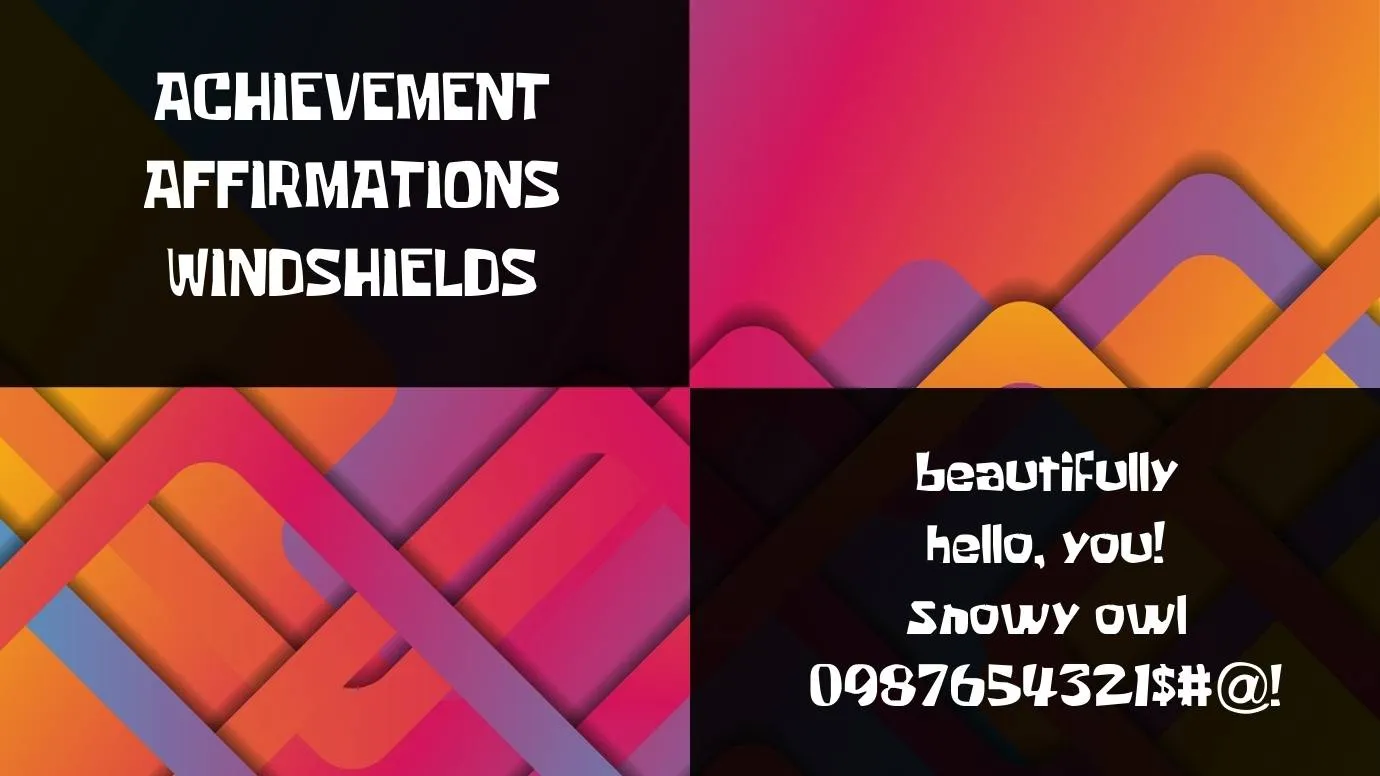
Krabby Patty Font is a font that was created to resemble the lettering used in the SpongeBob SquarePants episode “Krabby Land.” The font is available for free online. Krabby Patty typeface is available in different styles, including regular, bold, and italic.
Krabby Patty typeface has a complete set of characters including upper and lowercase letters, numbers, and punctuation marks. The font also includes a special character for the Krabby Patty logo.
Designer of Krabby Patty Font
This surprising and attractive typeface is designed by an Indonesian typeface designer Seilweiss in 2012.
This font style is designed with a unique and consistent style. This single attractive style is a mixture of various characteristics, containing upper- and lower-case letters, numbers, punctuations, symbols, special characters, glyphs, and multiple language support.
| Name | Krabby Patty Font |
| Style | Cartoon |
| Designer | Seilweiss |
What is the Krabby Patty typeface?
The Krabby Patty typeface is a font that was created to resemble the lettering used in the SpongeBob SquarePants episode “Krabby Land.” The font is available for free online.
Is Krabby Patty texture the most used style?
No, the Krabby Patty typeface is not the most used font.
Is Krabby Patty’s typeface outdated?
No, the Krabby Patty typeface is not outdated.
What is the cloned version of the Krabby Patty typeface called?
The cloned version of the Krabby Patty typeface is called “Krabby Clone.”